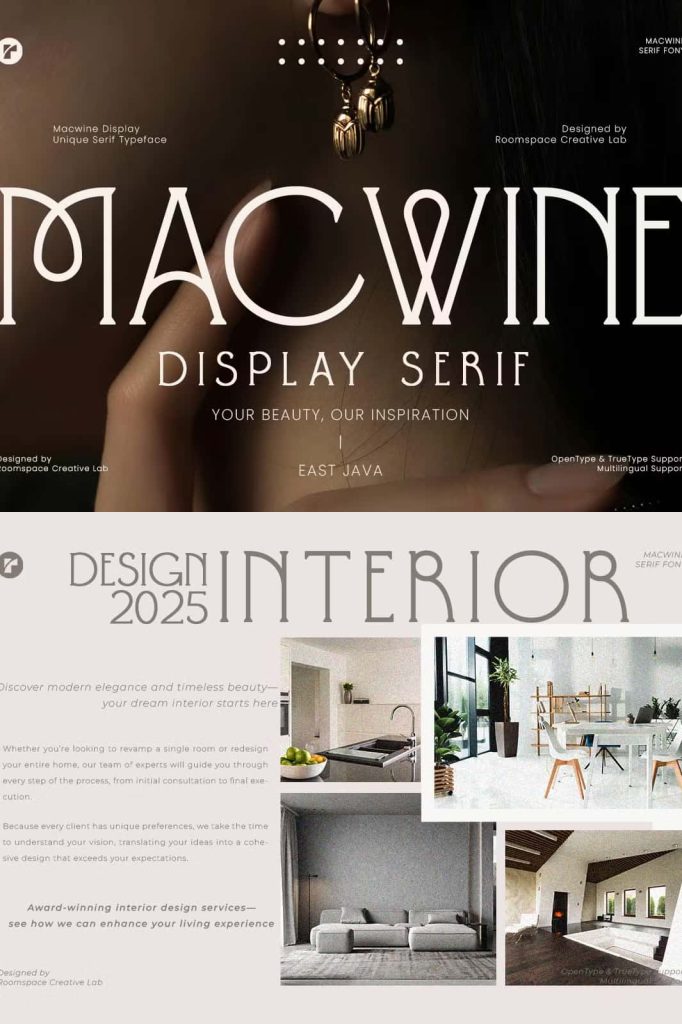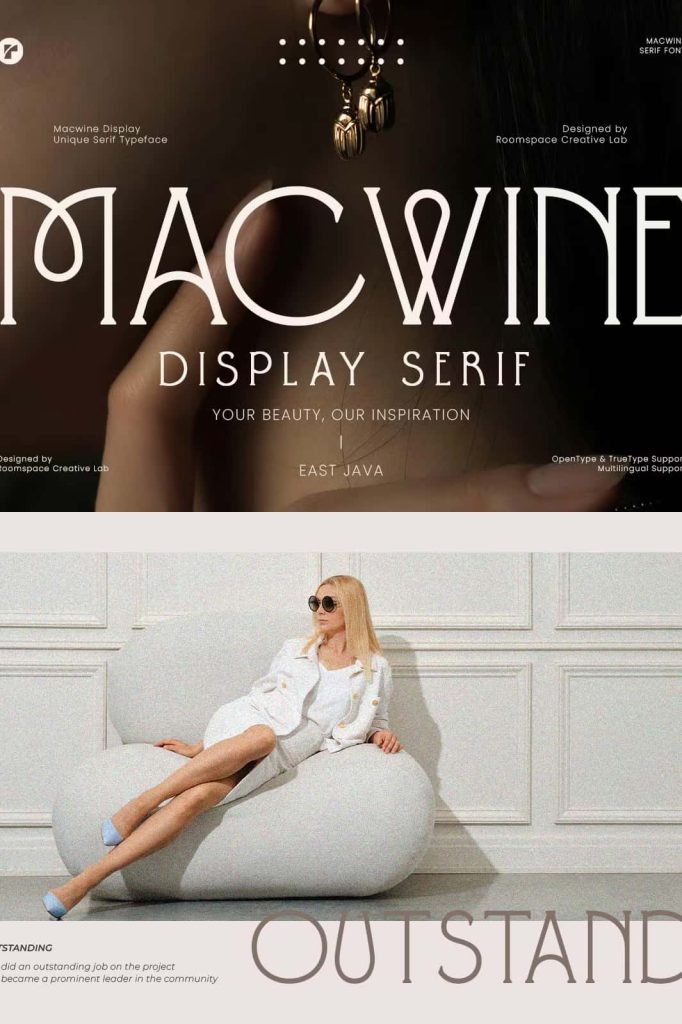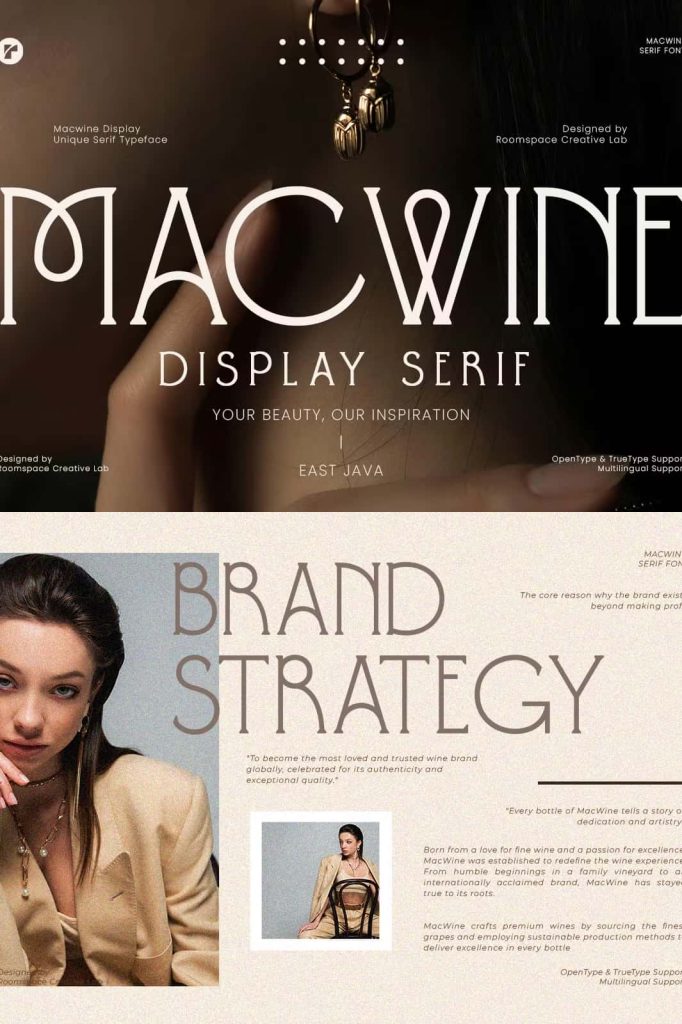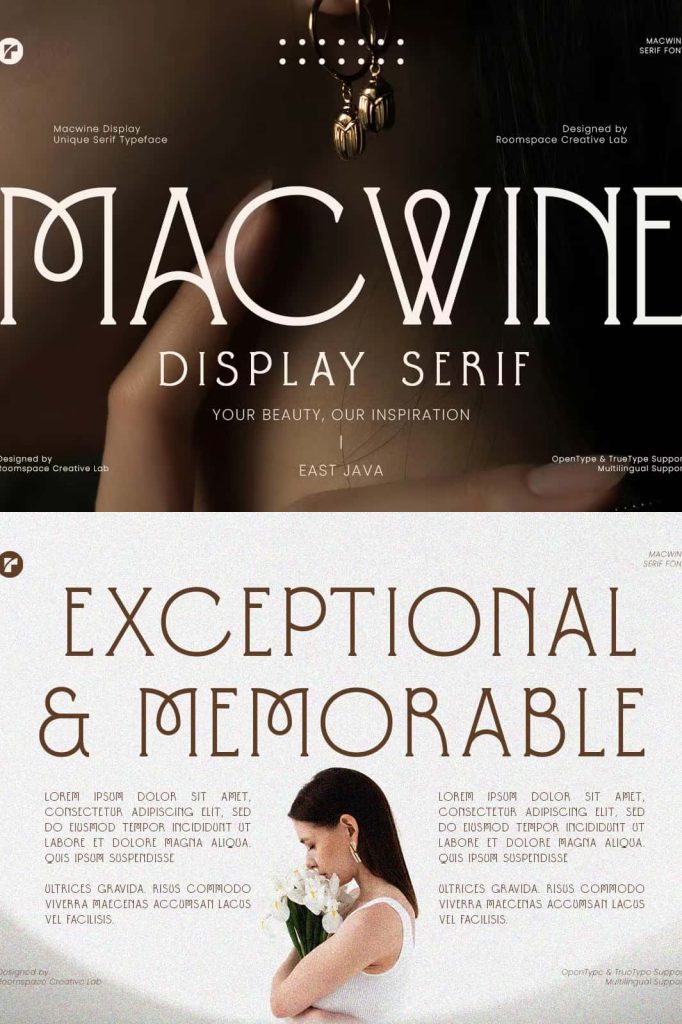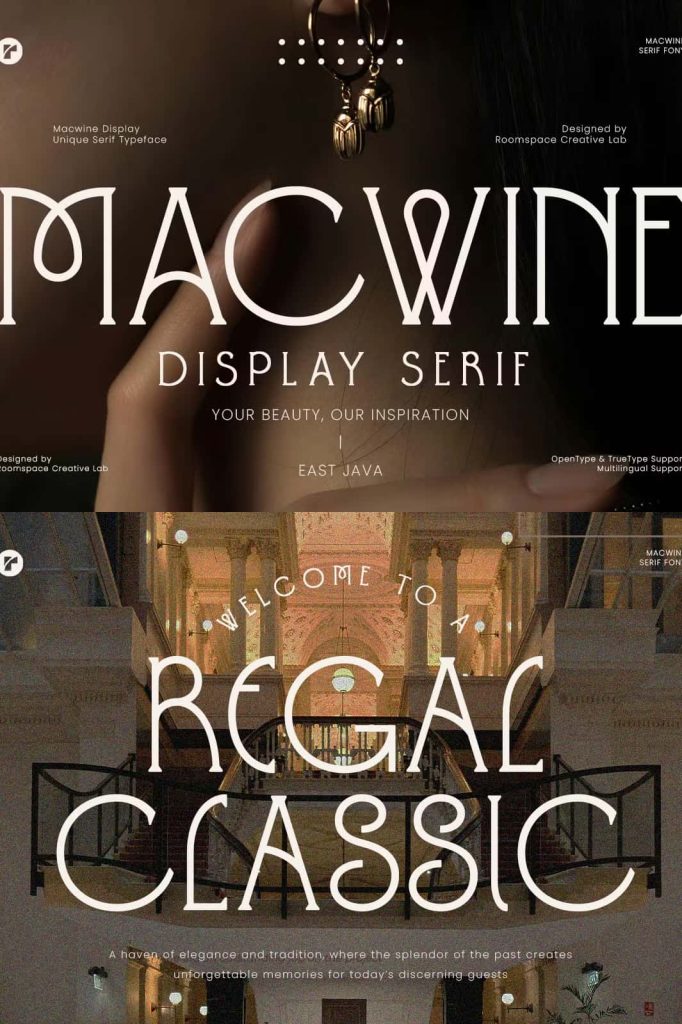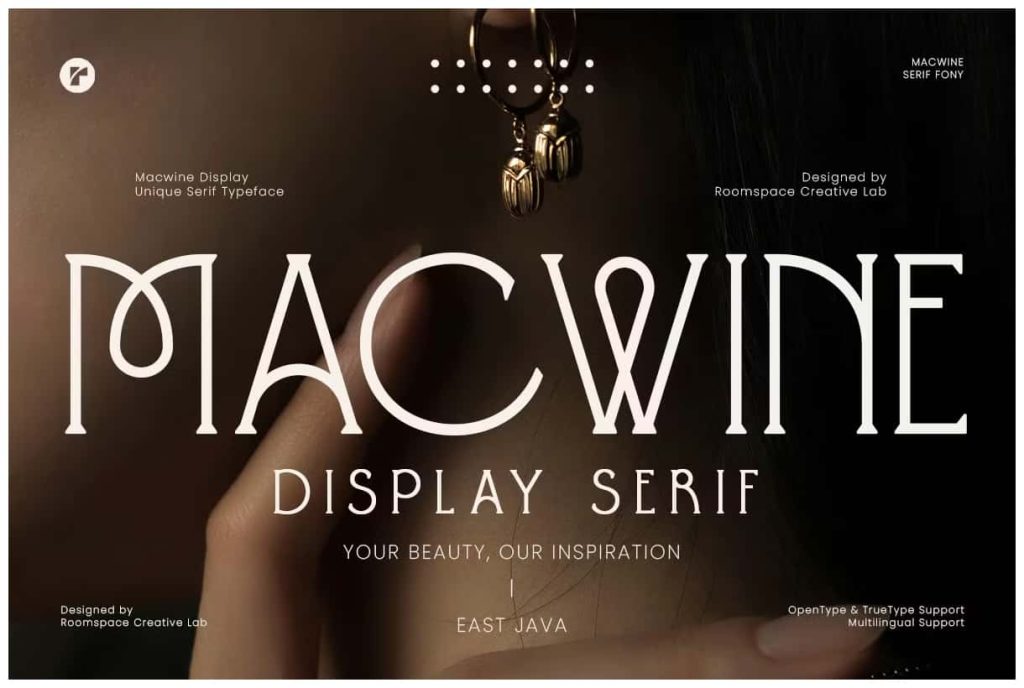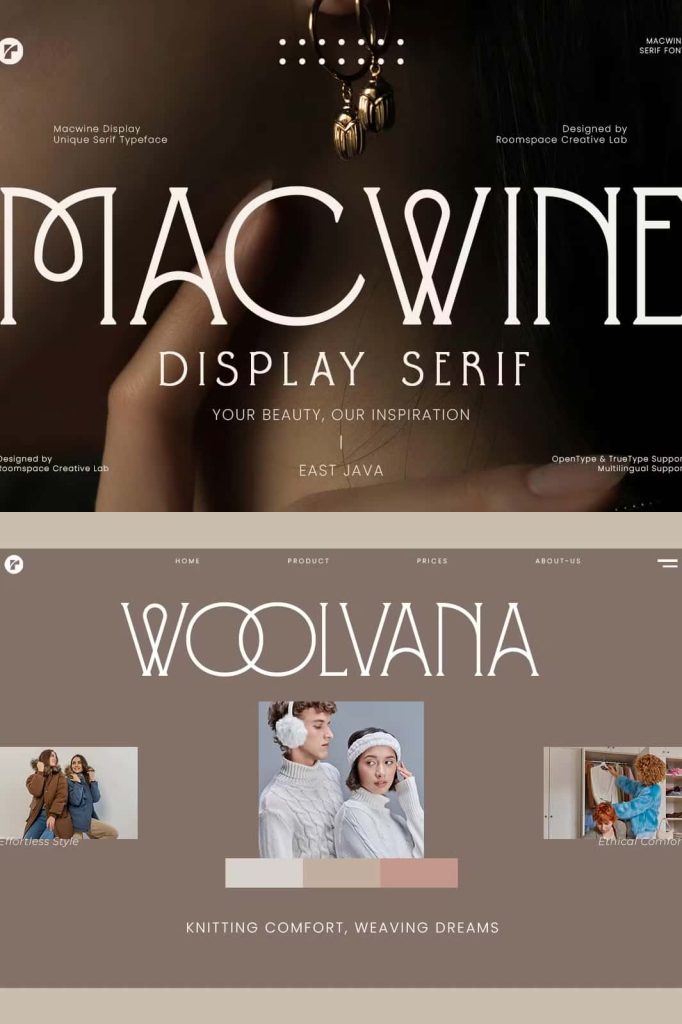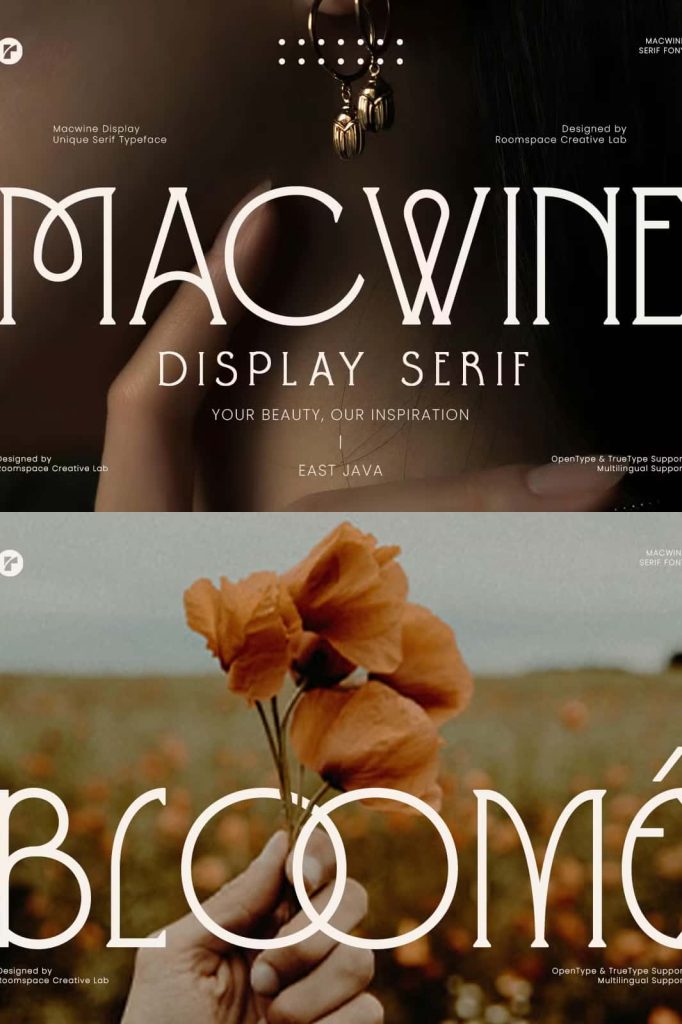
Macwine is a refined serif display typeface designed to bring elegance and sophistication to your designs. Featuring unique ligatures and artistic letterforms